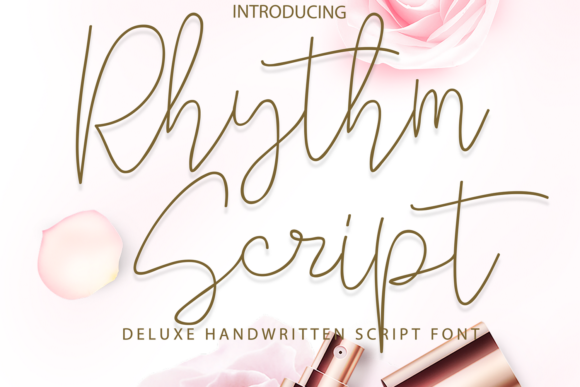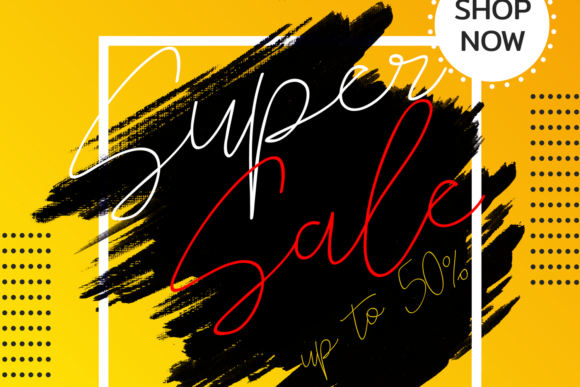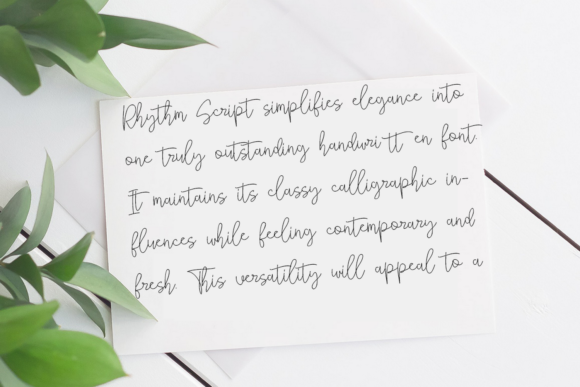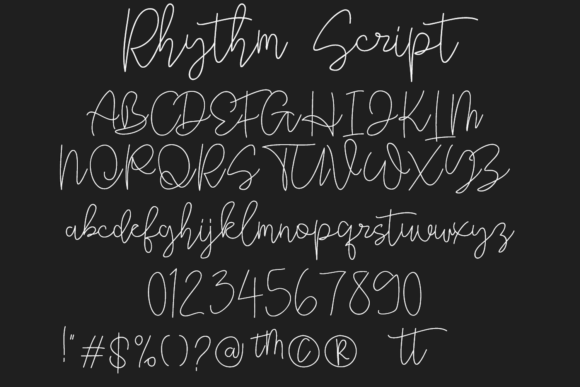
Rhythm Script Font
About Rhythm Script Font
Rhythm Script is an elegant, timeless handwritten font. Use it for your most creative ideas and notice how they stand out!